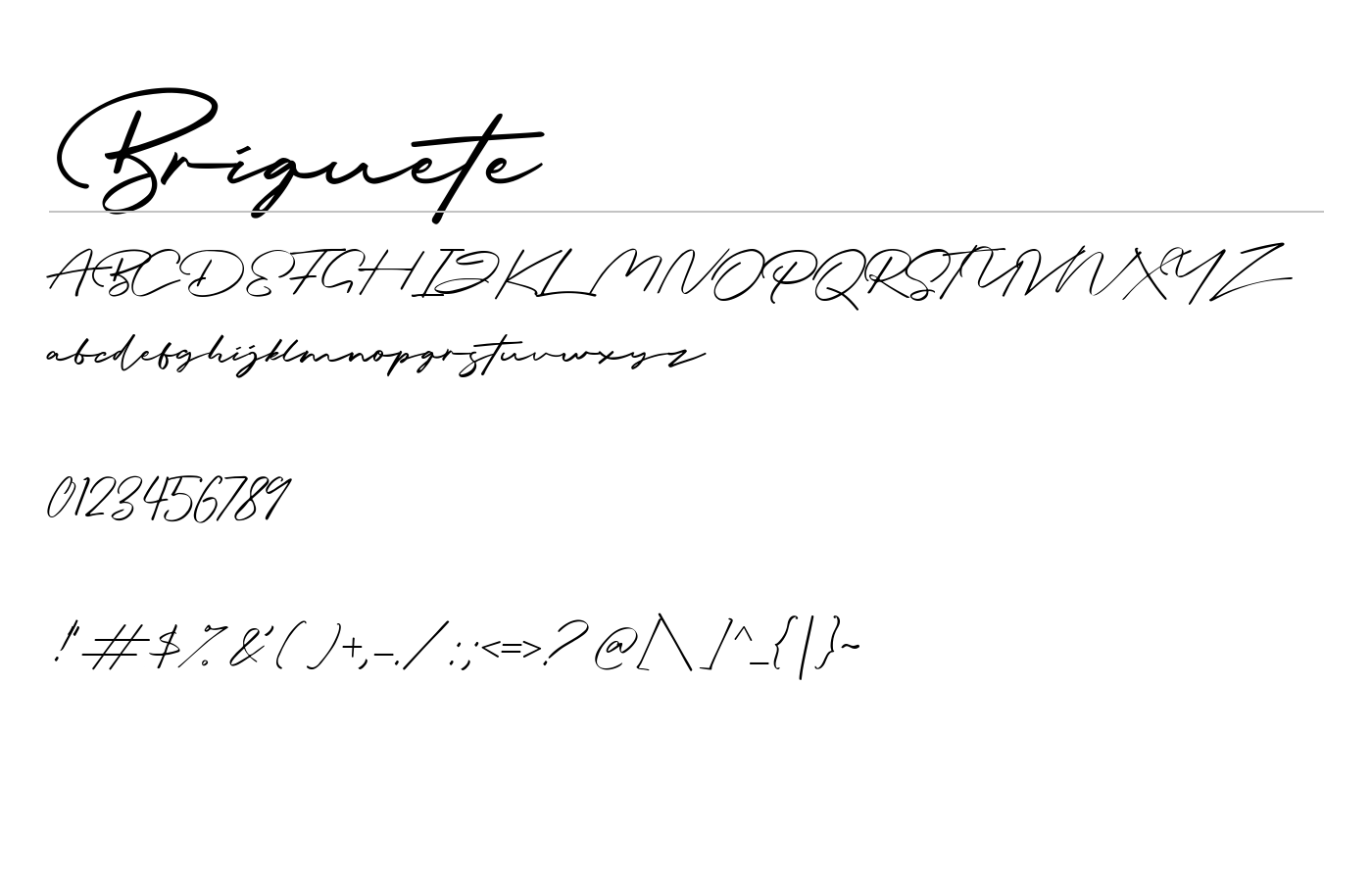
Briquete is a delicate, handwritten script font characterized by its thin, flowing strokes and elegant, slightly slanted letterforms. It conveys a refined and personal touch, making it ideal for use in invitations, branding, and sophisticated editorial projects where a stylish, intimate feel is desired. Its airy, light style works beautifully for headlines or decorative text, adding a graceful, modern flair to any design.
Briquete Font
About Briquete Font
| Designer | Ferry Ardana Putra + Bluetype |